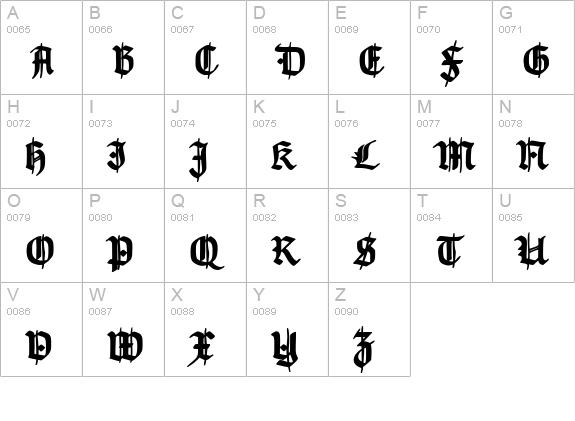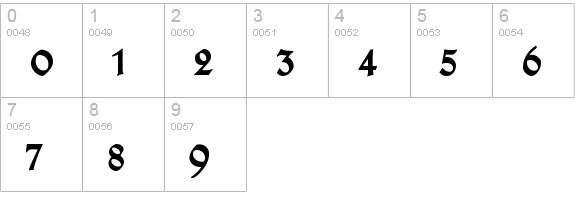
TypographerGotisch Schmuck Bold is a strong, high-contrast variant in the TypographerGotisch typeface family \xE2\x80\x94 well suited to headlines, attention-grabbing titles, and strong calls-to-action.
TypographerGotisch Schmuck Bold font is a stunning display typeface that exudes elegance and sophistication. With its intricate and ornate design, this font is perfect for adding a touch of old-world charm to any project. Featuring bold and dramatic letterforms, TypographerGotisch Schmuck Bold commands attention and creates a striking visual impact. Each character is meticulously crafted, showcasing the meticulous attention to detail that went into creating this extraordinary font. This font is not only visually captivating but also highly versatile. It can be used for various design purposes, such as headlines, logos, posters, invitations, and more. Whether you're working on a vintage-themed project or aiming to add a touch of luxury to your designs, TypographerGotisch Schmuck Bold is the perfect choice. And the best part? This exceptional font is available for free! You can easily download TypographerGotisch Schmuck Bold at FontsMarket.com, a reputable online platform for high-quality fonts. It's a great opportunity to enhance your design projects without any cost. So why wait? Get your hands on this incredible font and let your creativity shine!